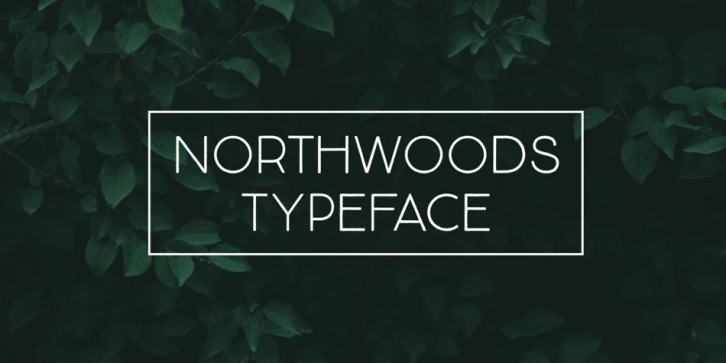
Designed by Cindy Kinash, Northwoods is a hand drawn font family. This typeface has ten styles and was published by Cultivated Mind.
Northwoods is a simple, handwritten sans serif font family by Cindy Kinash. This family includes five weights and italics.
Northwoods is a little different then most sans serifs being that it’s handwritten. You can use the fonts in multiple ways such as in design or textually. Try the bolder weights for display text and the lighter/italic weights for textual purposes.
Northwoods is great for packaging, magazines, layouts, web design, corporate identity and marketing. Posters designed by Henry Barros.